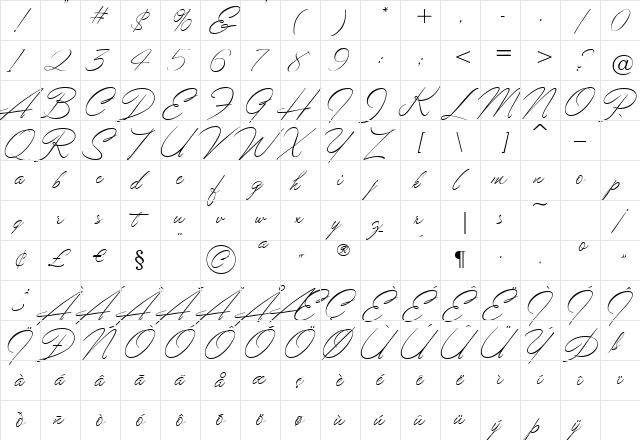
MarmaladeJF Regular
Design Context for MarmaladeJF Typeface
MarmaladeJF is a composed and adaptable typeface that performs quietly and consistently across a wide range of design contexts.